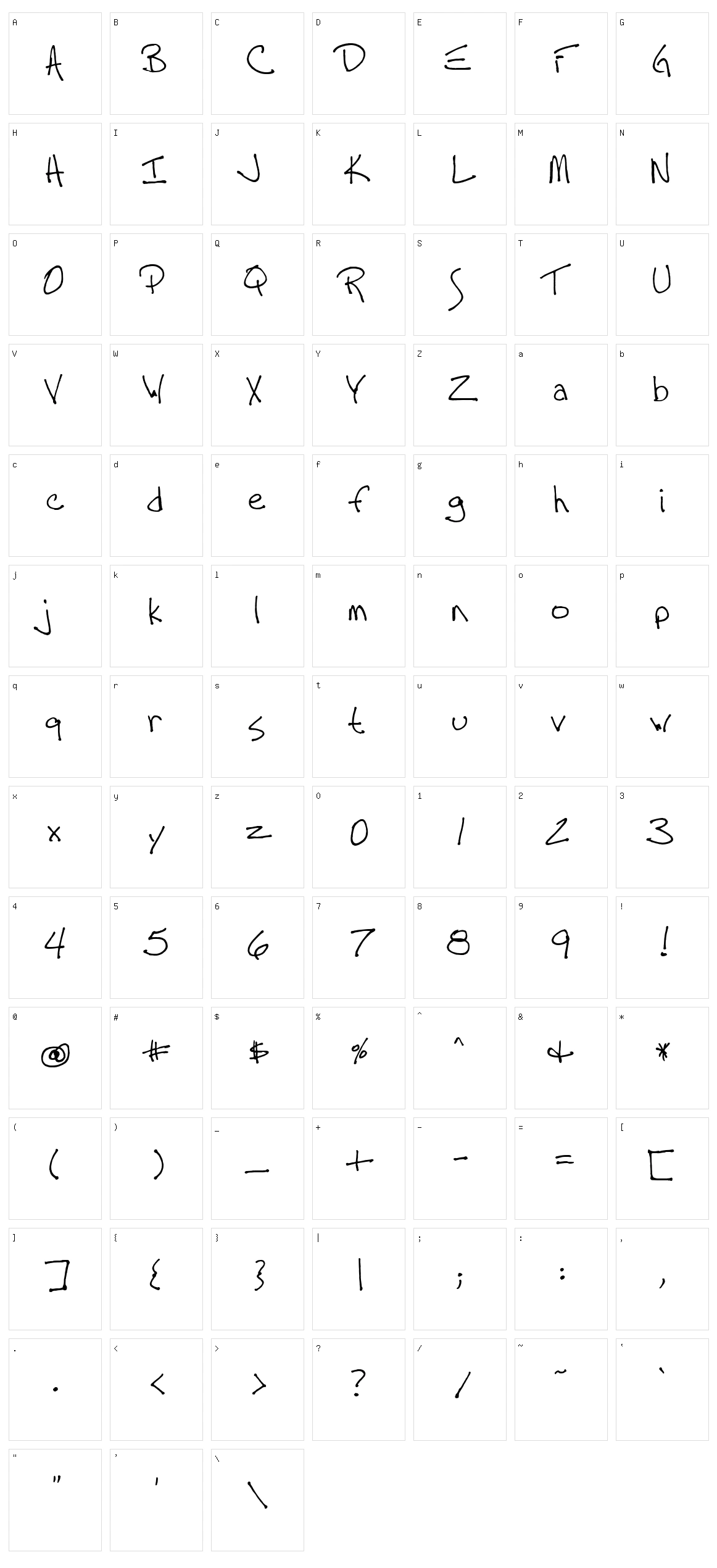
handcrafted in the emerald city, seattle, washington, usa
by steven j. lundeen,
emerald city fontwerks,
by its namesake, and recent newlywed, tallpaul himself.